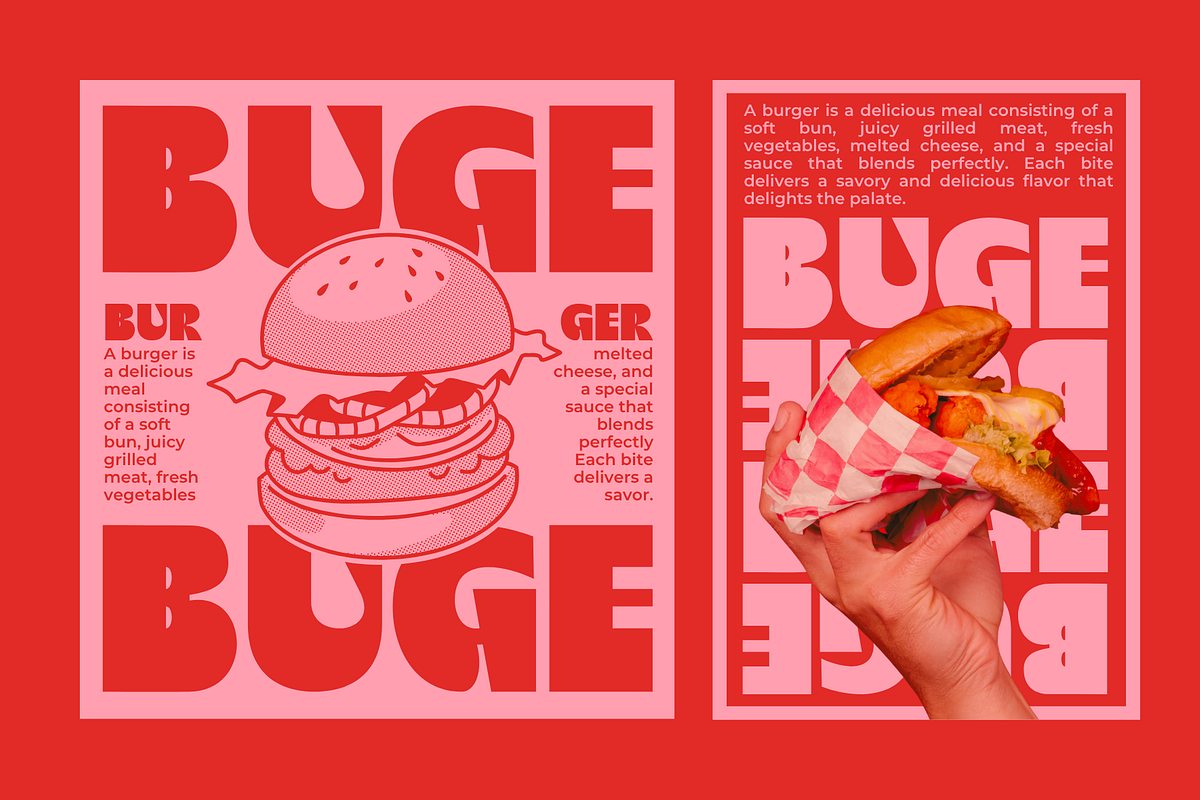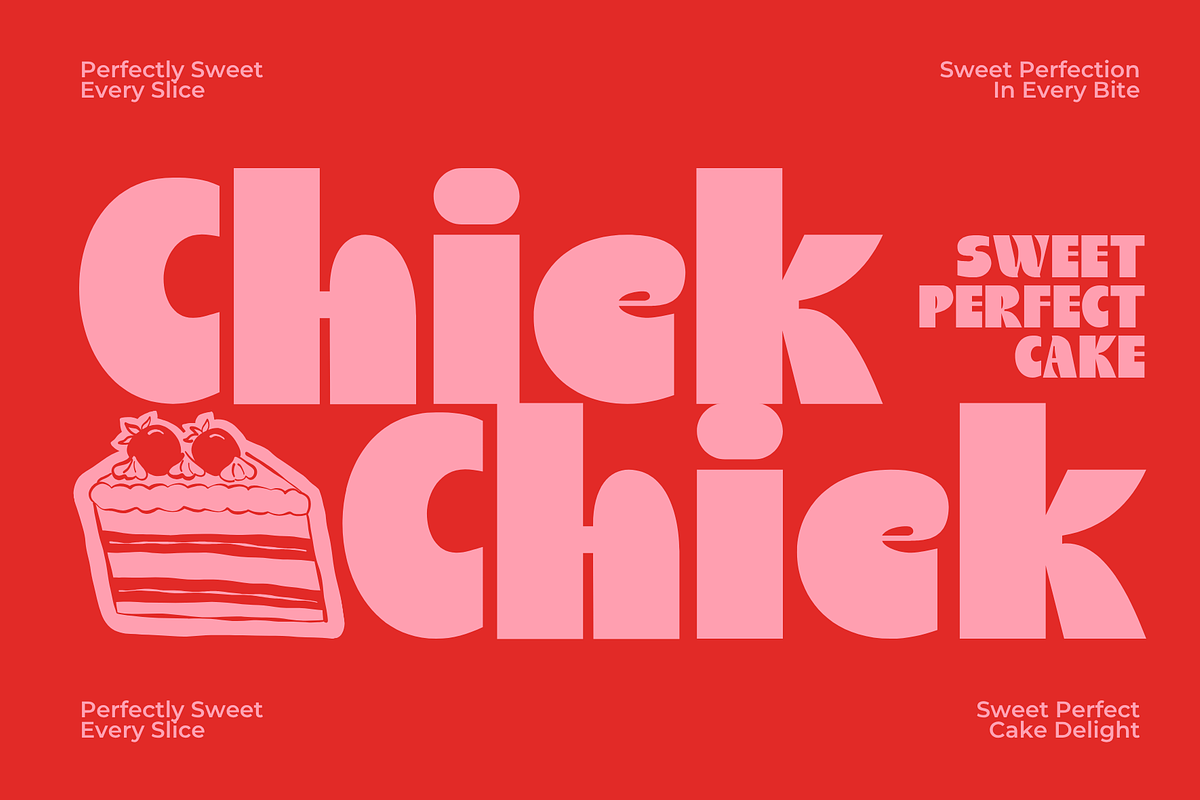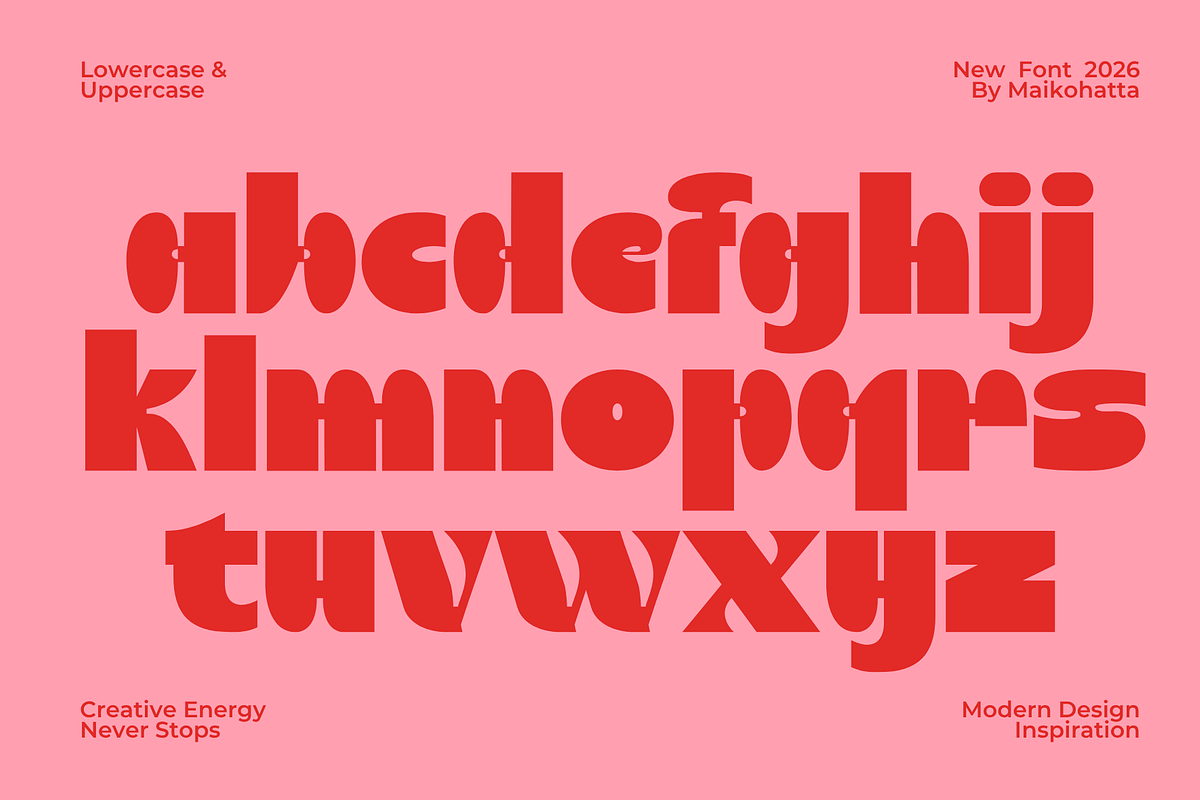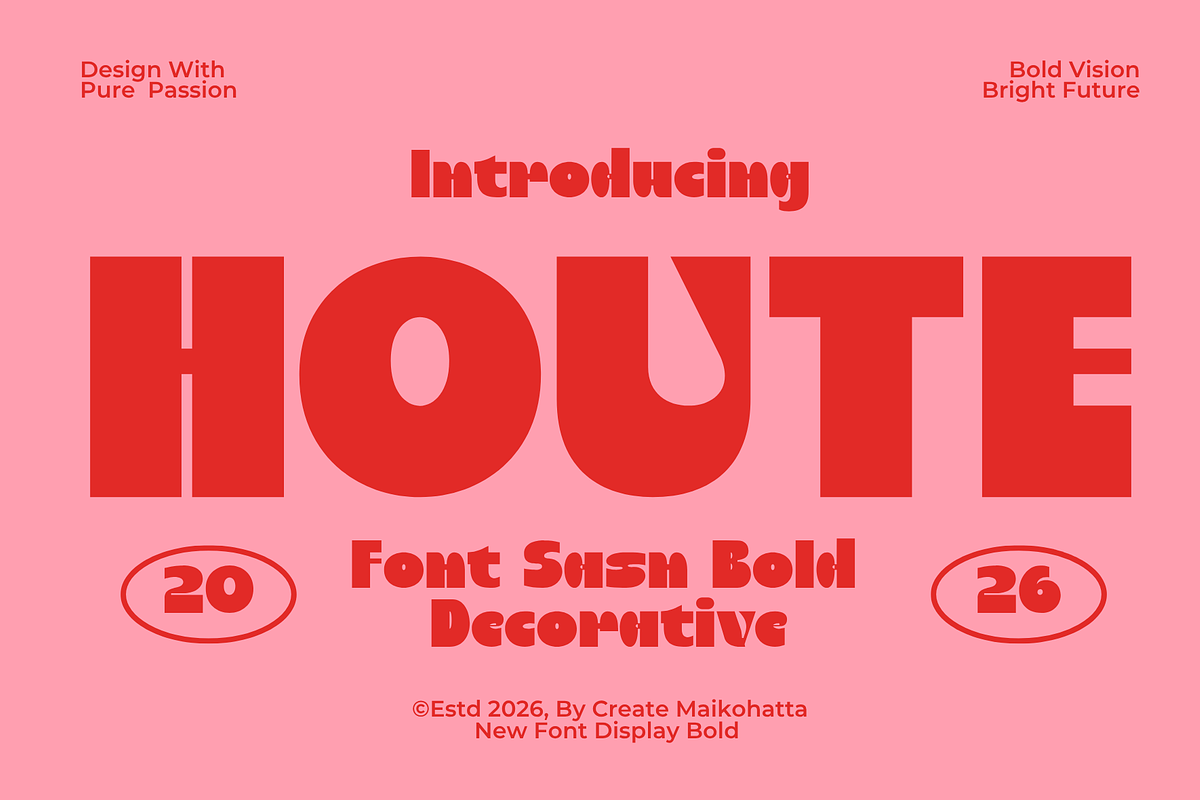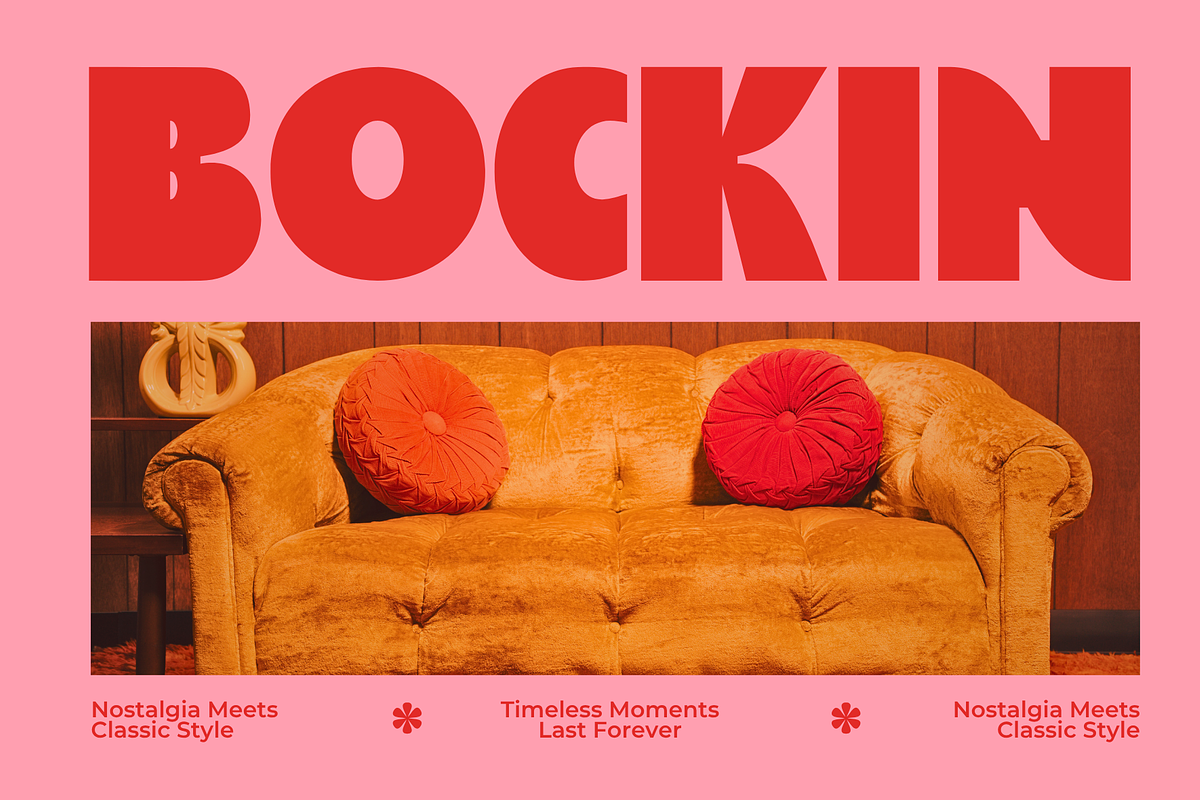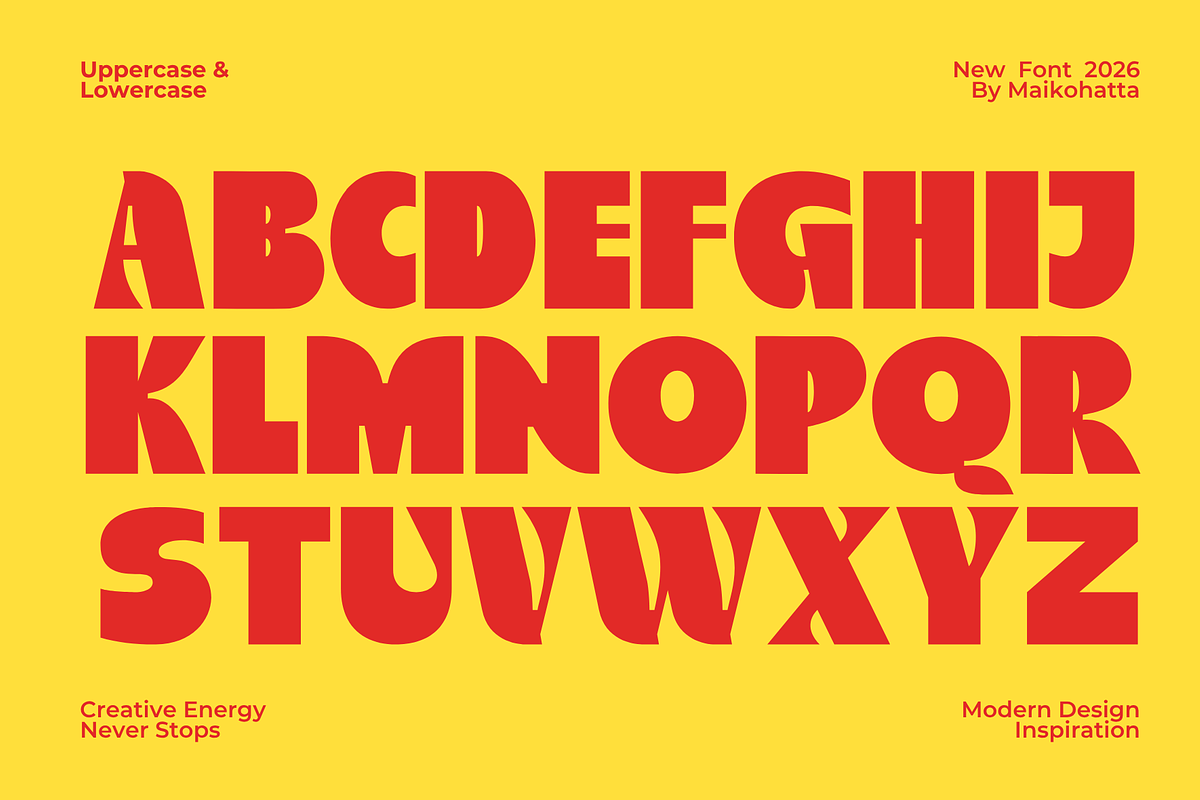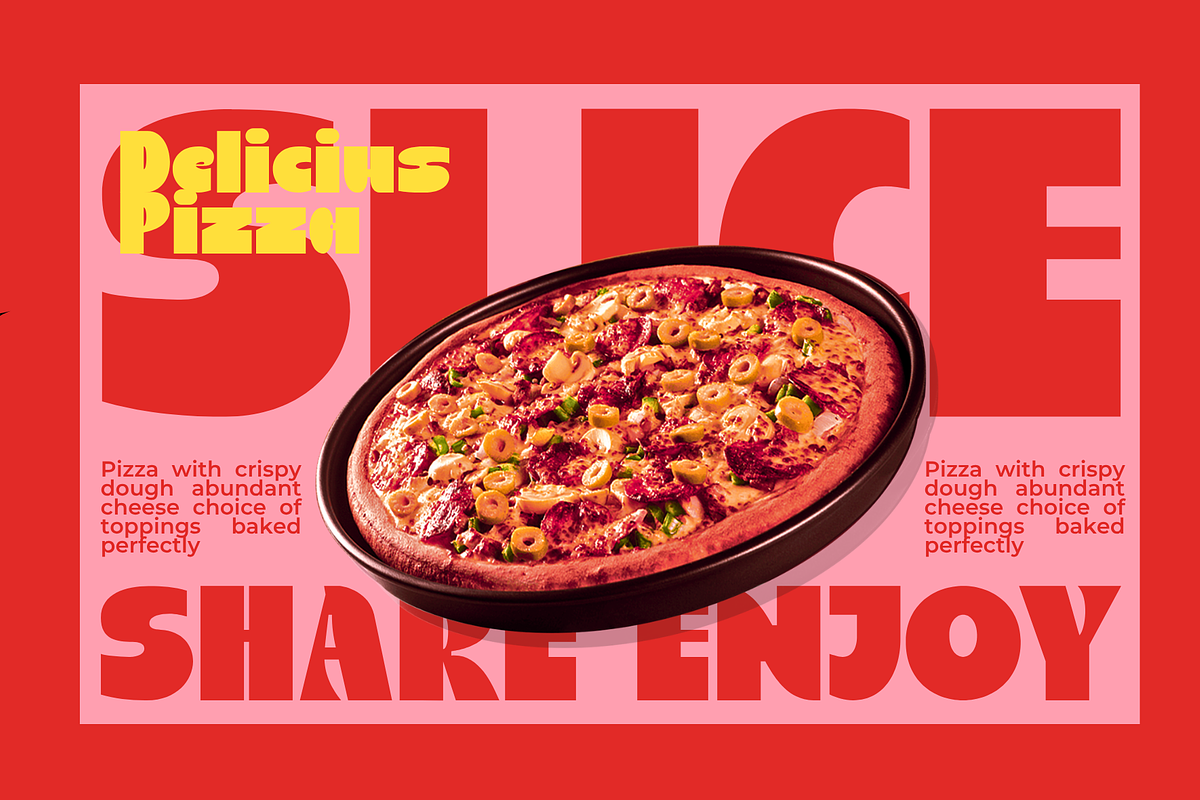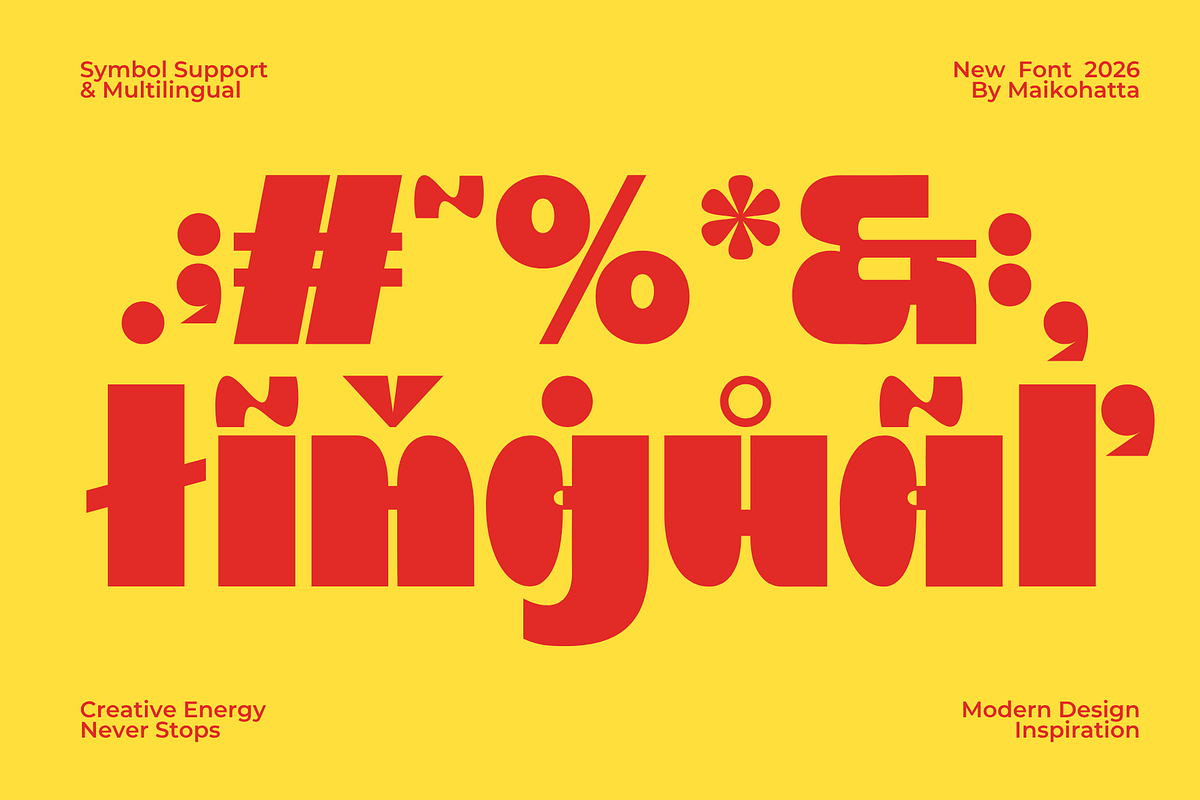
Houte–Retro Bold Decorative Display
Introducing our new product Houte – Retro Bold Decorative Display
Houte is a bold decorative display font inspired by retro aesthetics and groovy typography from the 70s and 80s. Featuring thick letterforms, soft curves, and unique character details, this typeface delivers a strong visual impact while maintaining a playful and friendly personality.
Designed to stand out in large sizes, Houte is perfect for branding projects, posters, packaging, logos, headlines, social media graphics, merchandise, and creative editorial designs. Its distinctive bold style adds a nostalgic vintage touch while remaining fresh and eye-catching for modern design trends.
Whether you're creating retro-themed artwork, trendy marketing materials, or expressive visual identities, Houte provides the perfect balance of charm, confidence, and creativity. The font’s decorative forms help your designs capture attention instantly and leave a memorable impression.